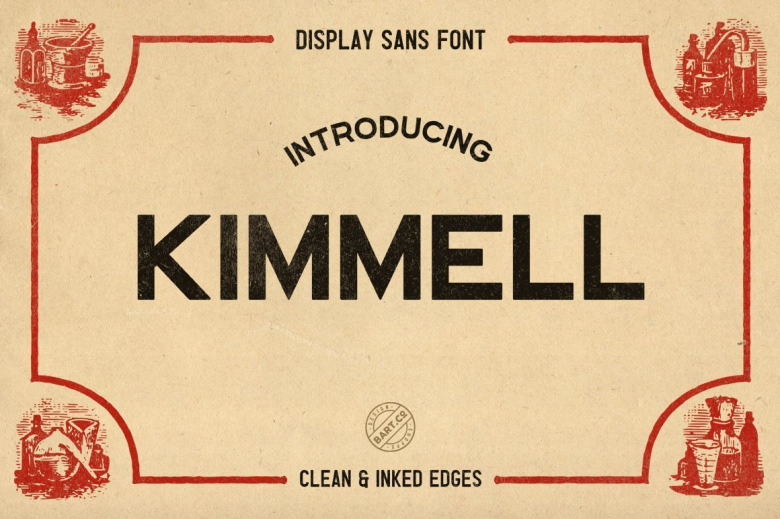
Kimmel Font
Kimmell Font
Introducing Kimmell Font! Kimmel is a extended sans typeface (clean, rough), designed by BART.Co Design. Kimmel fonts are inspired by vintage medicine and druggists books, labels and signboards. Kimmel font is applicable for any type of graphic design – web, print, motion graphics etc.